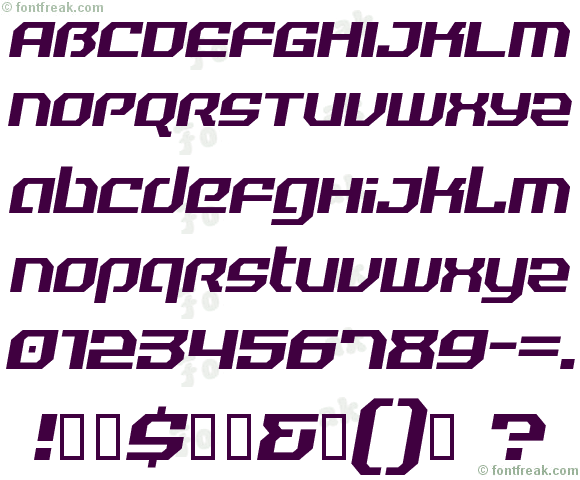
Reality Hyper Regular
About Reality Hyper Regular
Reality Hyper Regular is a distinctive display font designed by Jayvee Enaguas, released under a freeware license. This font stands out in the category of display typefaces, boasting a unique blend of contemporary and retro aesthetics. With its geometric shapes and angular forms, it captures attention while maintaining readability.
Visually, Reality Hyper Regular features a medium stroke weight that balances boldness with clarity. The contrast is moderate, allowing the letters to stand out without overwhelming the viewer. The spacing is thoughtfully designed, providing enough breathing room between characters to enhance legibility. Its unique decorative elements, including sharp edges and a slightly futuristic flair, make it ideal for creative projects that demand a bold statement.
This font is versatile, making it suitable for a variety of applications. It excels in creating eye-catching movie posters, where its modern aesthetic can convey excitement and intrigue. Additionally, it works well in branding for small businesses, especially those in tech or design sectors, helping to establish a memorable identity. Reality Hyper Regular is also a great choice for promotional materials, such as flyers and banners, where attention-grabbing typography is essential. Furthermore, it can add a distinct touch to event invitations, making them stand out from traditional designs.
Target audiences for Reality Hyper Regular include graphic designers looking for a unique typeface to enhance their projects, small business owners who want a memorable brand presence, and content creators who need impactful fonts for digital media.